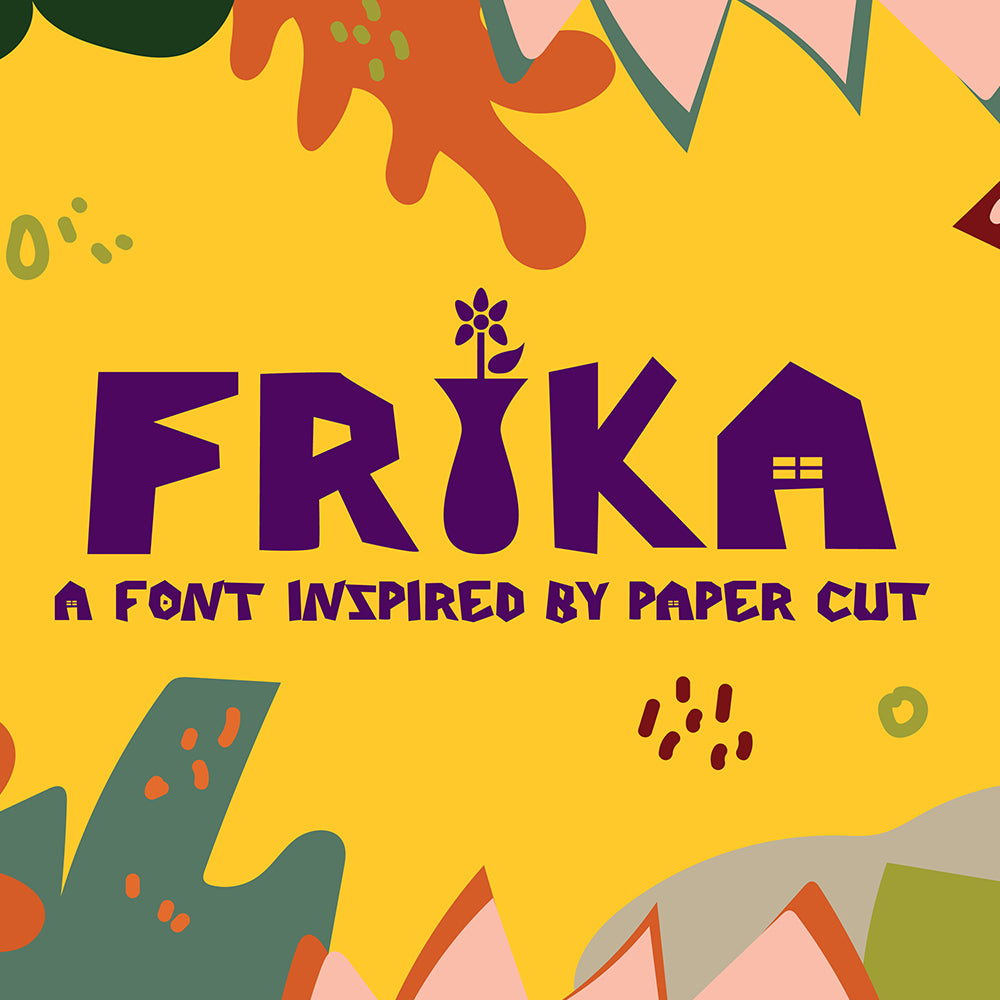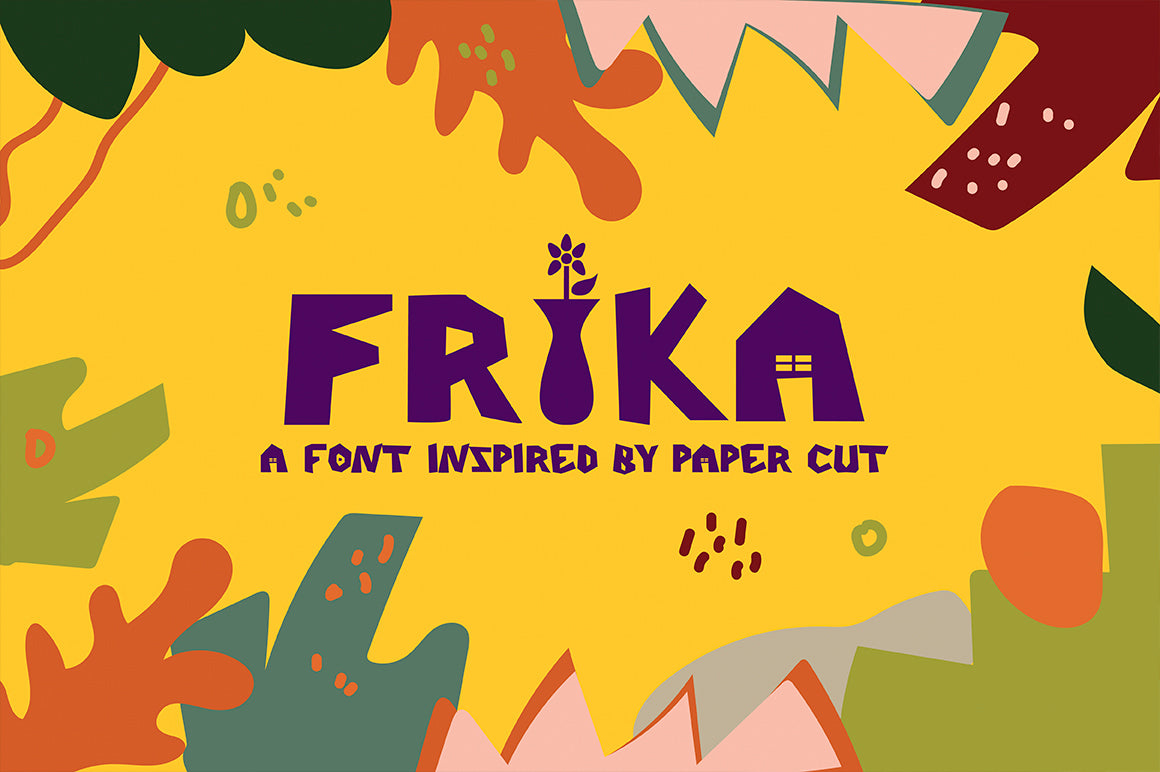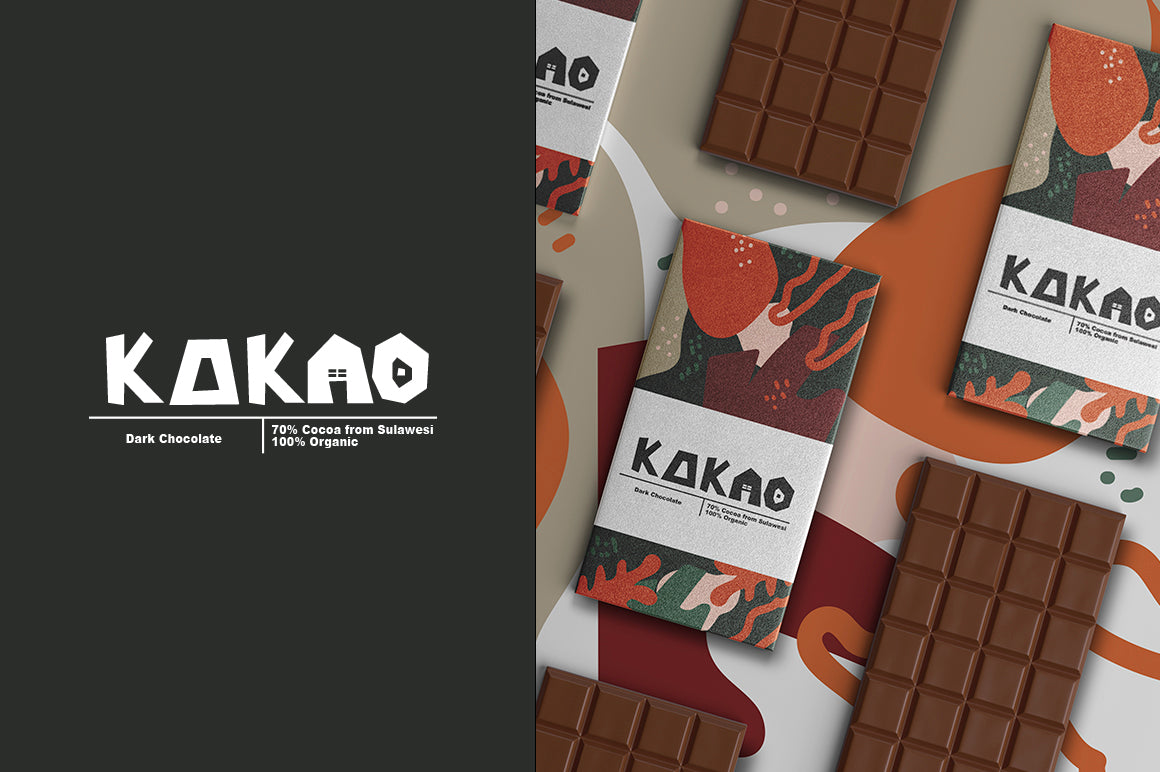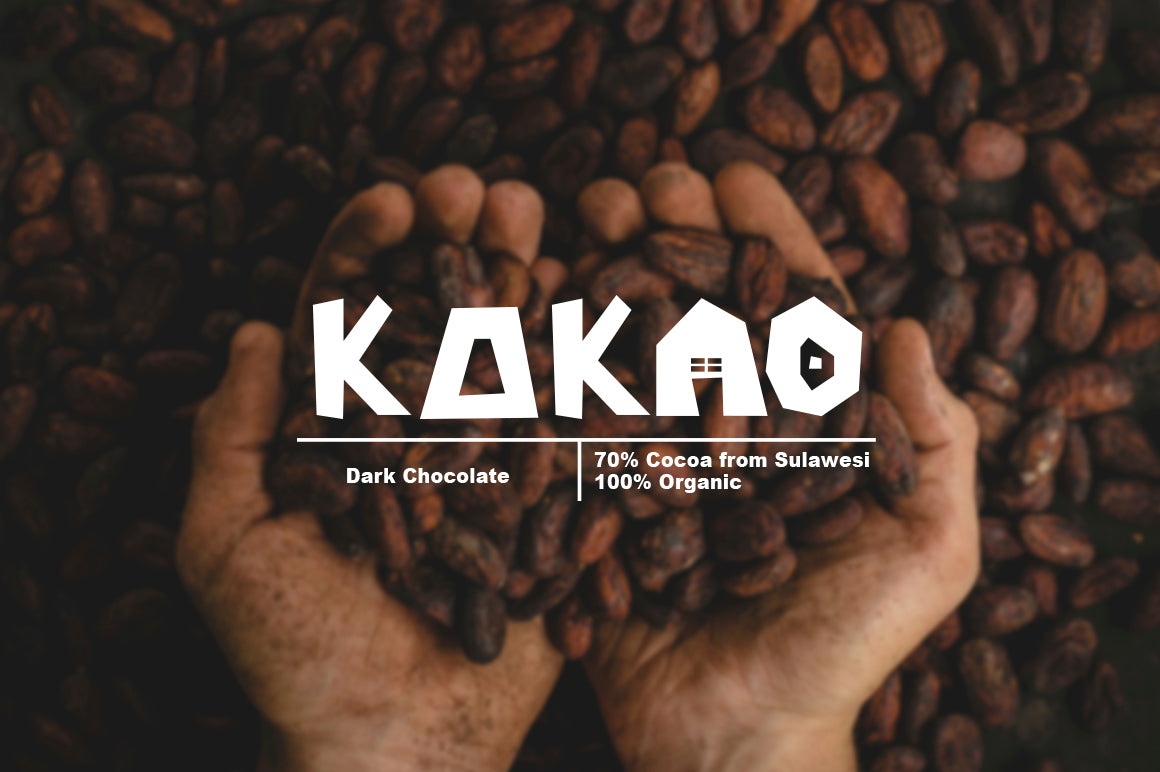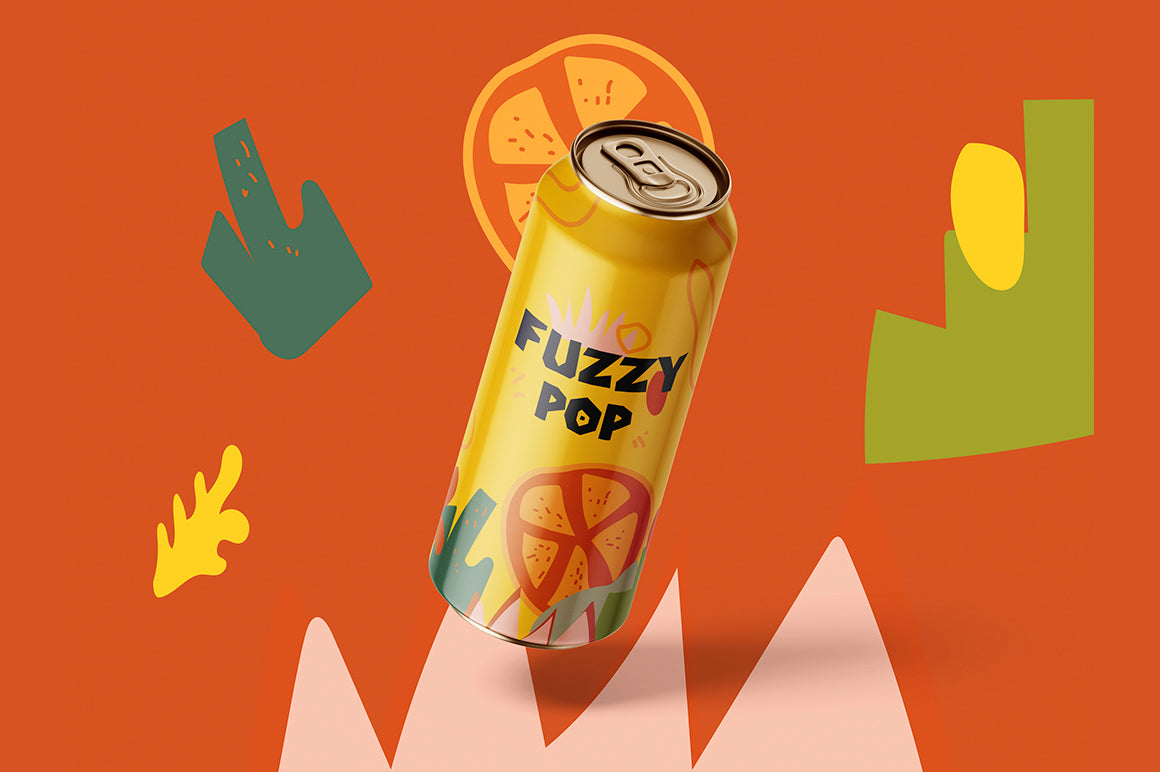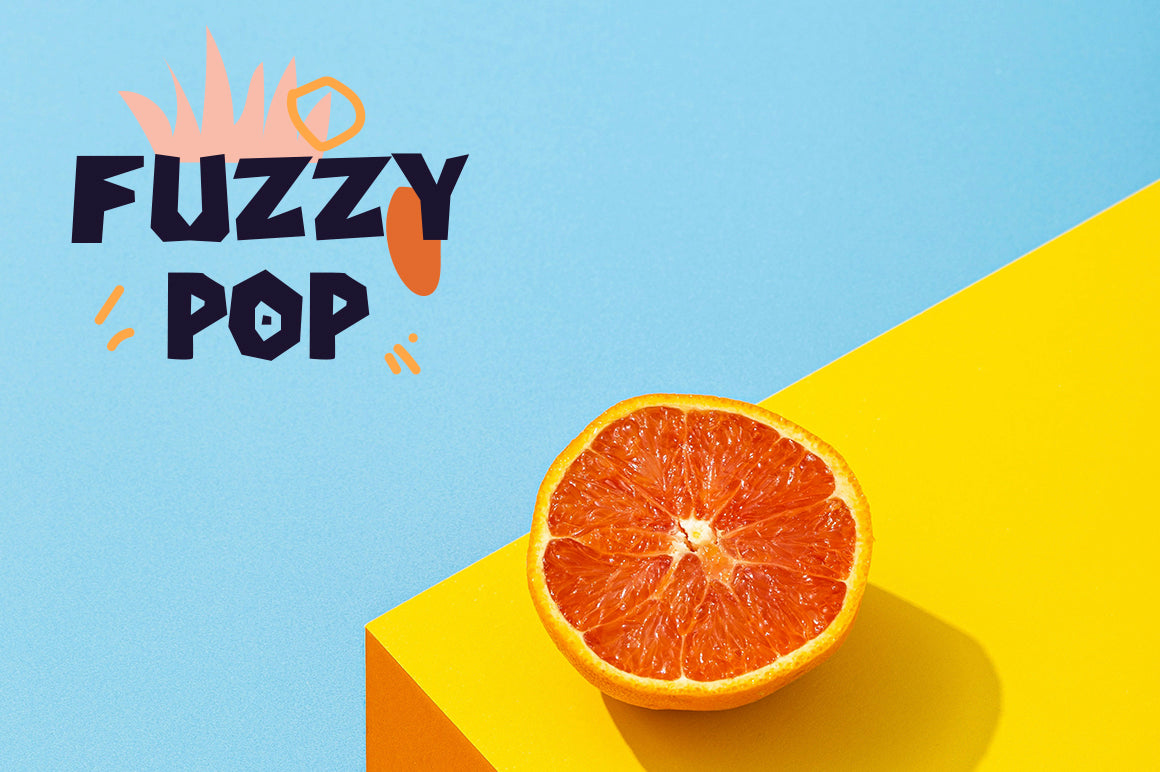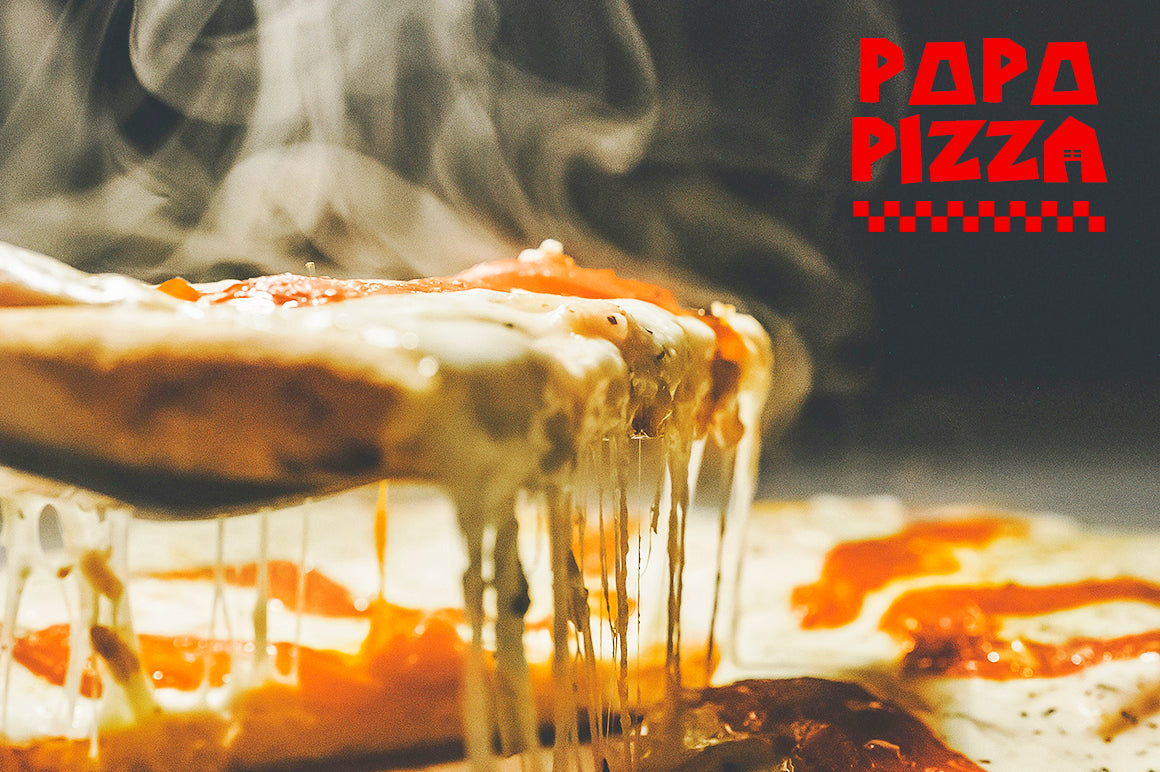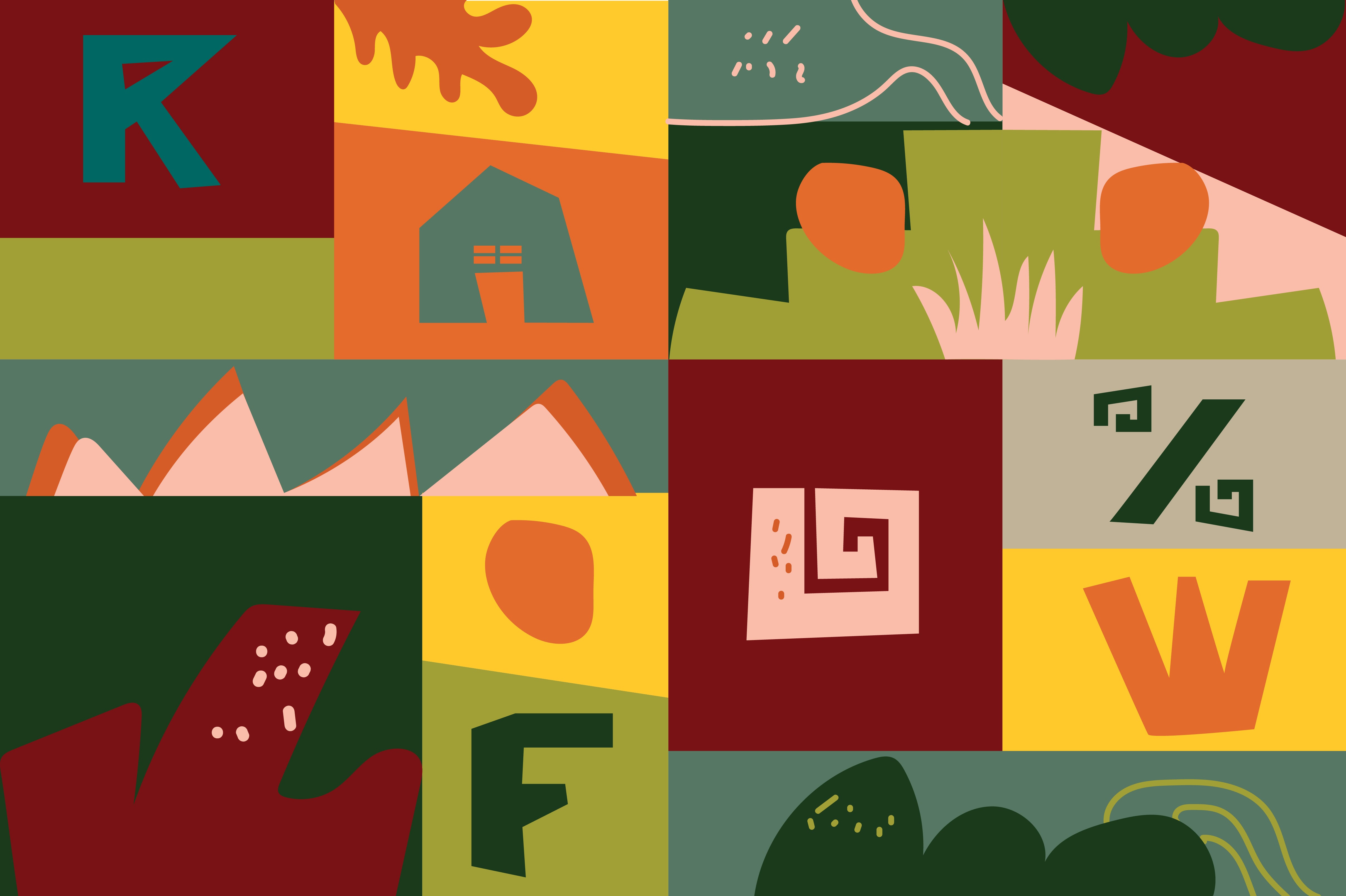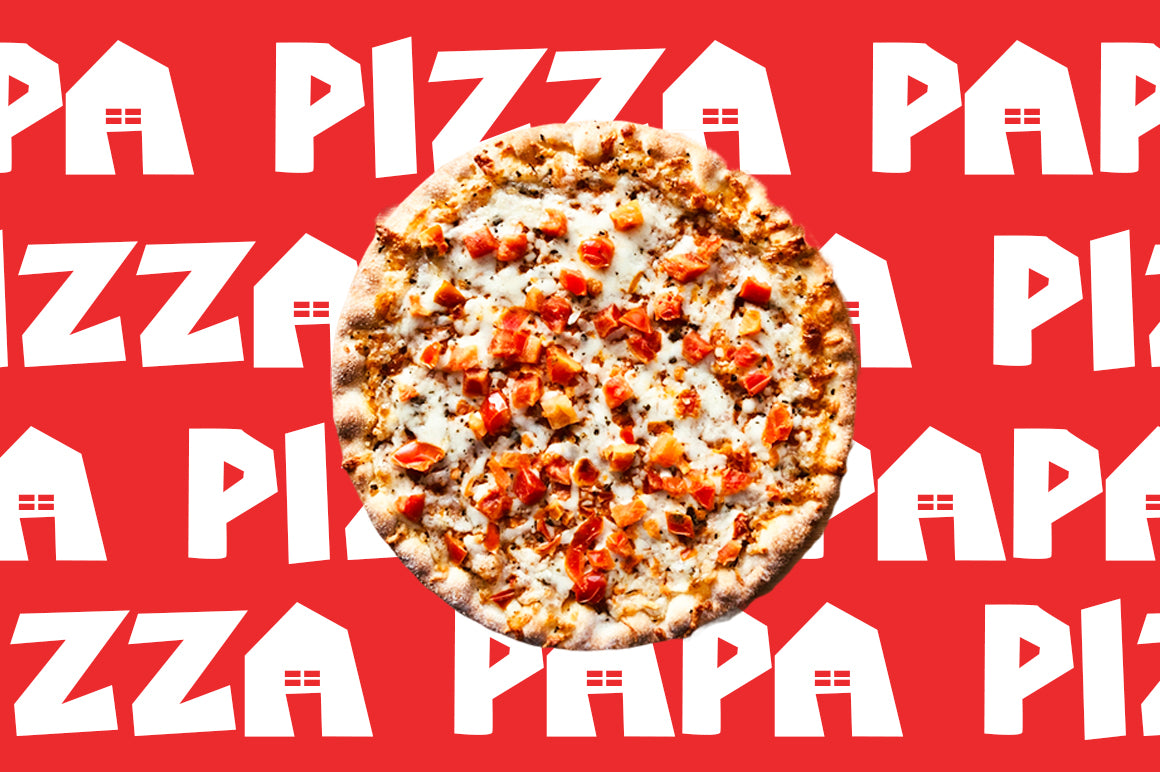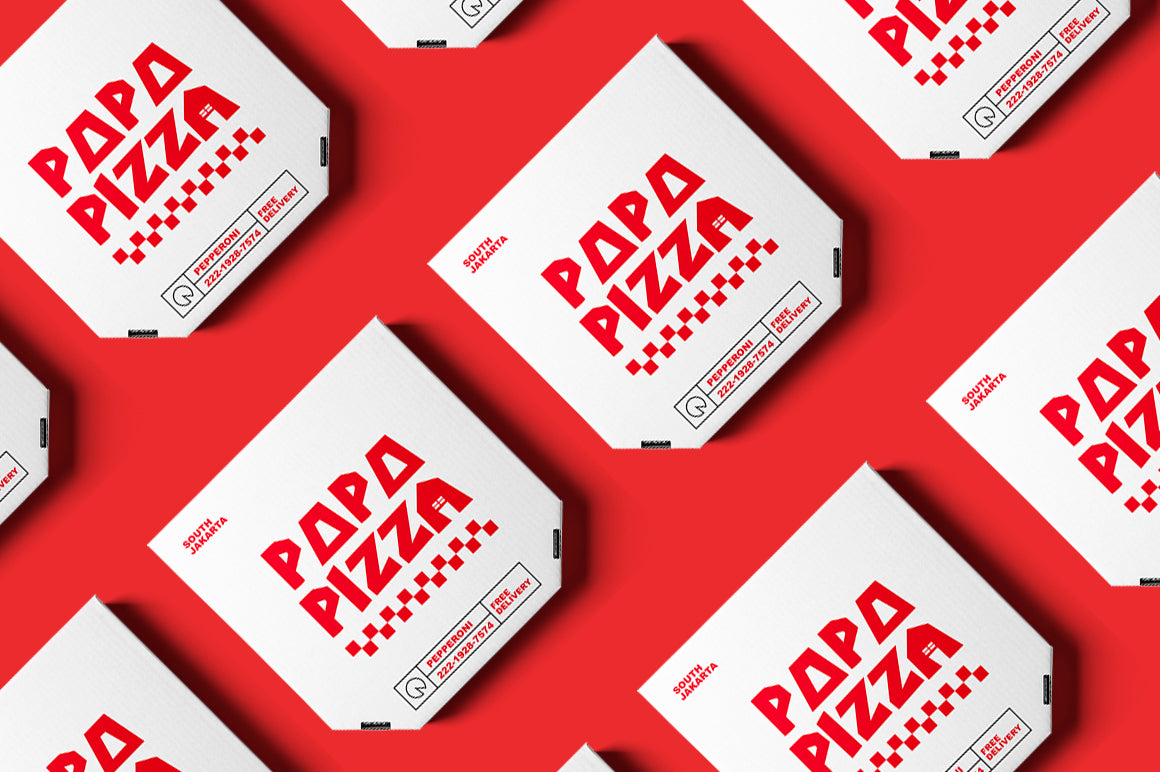
Frika – Playful Paper cut font
Introducing Frika, a unique and captivating font inspired by the intricate beauty of paper cut designs and the rich heritage of ethnic art. Frika embodies a delicate yet bold aesthetic, combining the precision of traditional paper cutting with the diverse motifs found in various cultures around the world.
This font is perfect for those seeking to add a touch of handcrafted elegance to their projects. With its beautifully detailed characters and carefully designed alternates, Frika offers a versatility that makes it ideal for a wide range of applications. Whether you’re creating stunning invitations, bold branding, or eye-catching posters, Frika brings a sense of authenticity and creativity.
The alternates feature allows you to customize the look of your text, providing you with multiple stylistic options. This flexibility enables you to experiment with different combinations, giving your designs a personalized and unique touch.
Elevate your creative projects with Frika, and let the harmony of paper cut precision and ethnic artistry transform your text into a visual masterpiece.
Frika is a unique paper cut font that combines intricate design elements inspired by ethnic art with a bold aesthetic. It features detailed characters and customizable alternates, offering versatility for various design applications.